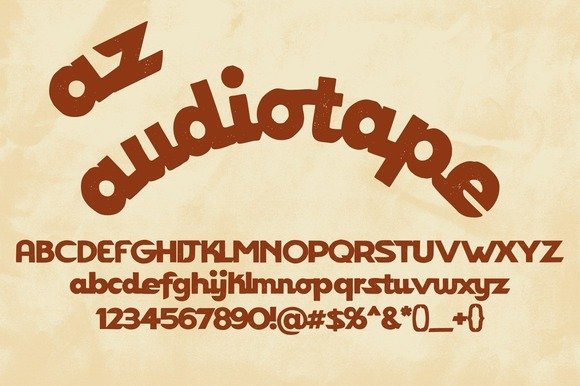
The Vinyl Revival: Unwrapping the AZ Audiotape Font
As a designer, you know that sometimes the most creative moments come from a dusty corner of your studio or a vintage thrift store find. For me, it was a 1970s record sleeve that sparked the idea for this article – and a font that’s been making waves in the design community.
Meet the AZ Audiotape Font, a display font that captures the essence of a bygone era. Inspired by a 70s record sleeve company logo, this font has a worn, antique feel that’s perfect for retro designs. Its unique aesthetic is sure to add a touch of nostalgia to your next project. For designers, the AZ Audiotape Font is a valuable addition to any toolkit, offering a distinctive look that’s hard to find elsewhere.
AZ Audiotape Font Key Features
- Unique Characteristics: AZ Audiotape Font features a distressed, cassette tape-inspired design, with worn and faded textures that evoke a nostalgic feel.
- Typographic Features: The font includes a range of typographic features, including ligatures, swashes, and alternates, allowing for a high degree of customization and creativity.
Designer Review: AZ Audiotape Font
Overall, I’m impressed with the AZ Audiotape Font, but like any design element, it has its strengths and weaknesses. Let’s dive in!
- The AZ Audiotape Font’s distressed aesthetic is perfect for adding a nostalgic touch to retro-themed designs, music-related projects, or even vintage-inspired websites.
- The font’s bold and playful feel makes it an excellent choice for headlines, titles, and other attention-grabbing text.
- The font’s unique texture and wear-and-tear effects give it a sense of character and depth, making it stand out from more traditional fonts.
- The font may be too distracting or overwhelming for certain types of content, such as body text or technical documentation.
- The AZ Audiotape Font’s distressed look may not be suitable for all audiences, particularly those who prefer clean and minimalist designs.
- The font’s limited character set and lack of language support may be a hindrance for designers working on multilingual projects.
Overall, I think the AZ Audiotape Font is a great addition to any designer’s toolkit, but it’s essential to use it thoughtfully and in the right context. When used correctly, it can add a unique touch to your designs and help you stand out from the crowd.
Tips for Getting the Most Out of AZ Audiotape Font
Use AZ Audiotape Font for retro-themed designs, such as cassette tapes, old computers, and video games.
Combine AZ Audiotape Font with other fonts to create a unique and eye-catching design.
Experiment with different font sizes, colors, and styles to achieve the desired effect.
Retro-themed posters and flyers.
Old-school video game and computer designs.
Music-themed merchandise, such as t-shirts and stickers.